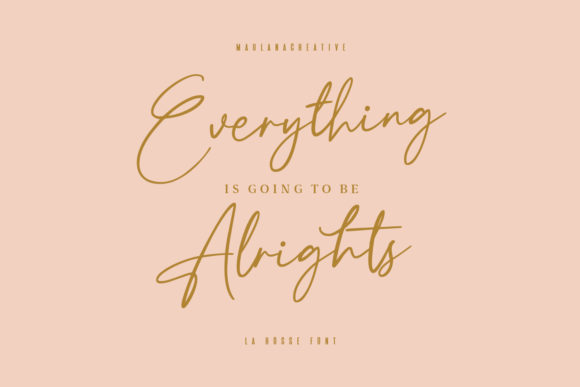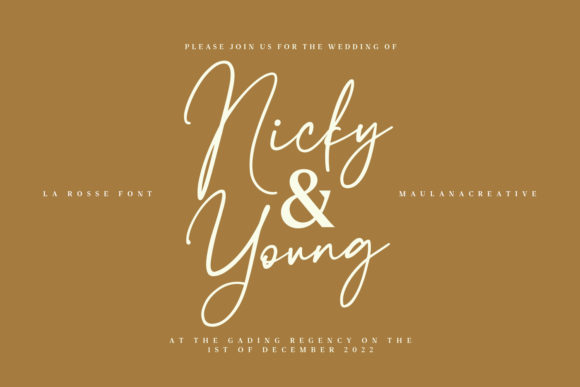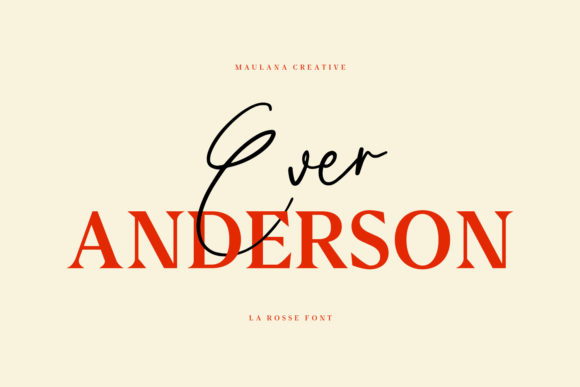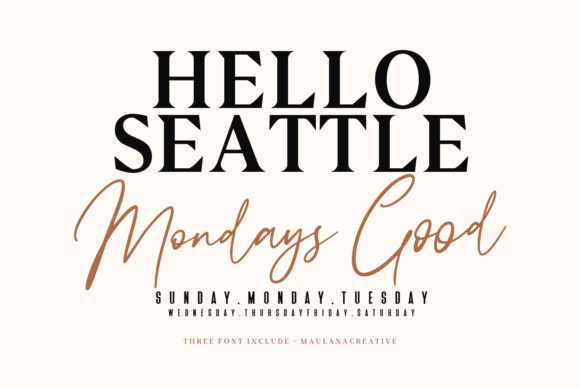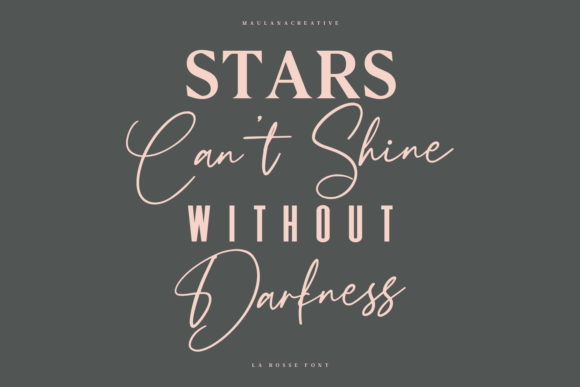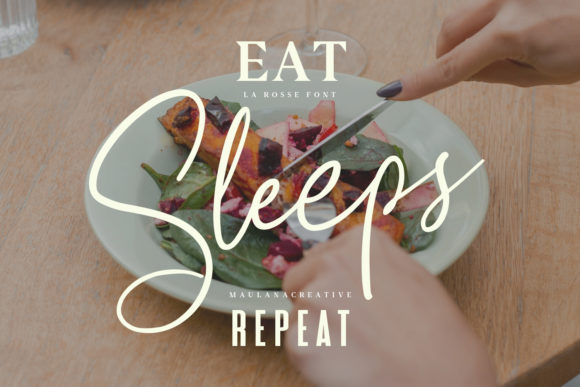
Introduction to La Rosse Font
Have you ever been stuck on a creative project, frantically searching for the perfect font to elevate your design? That moment of frustration is a common experience for many designers. But what if you stumbled upon a font that not only saved your project but also made it stand out? For those who have been searching for a high-quality, versatile font, look no further than La Rosse Font.
This elegant and stylish script font has been a game-changer for designers, offering a wide range of applications from serif to sans serif. With its classic touch, La Rosse Font is guaranteed to add a professional touch to any design project. Whether you’re working on a design resource or a personal creative project, this font is sure to impress. And the best part? It’s available for free download with a transparent background, making it a valuable addition to any designer’s toolkit.
Key Features of La Rosse Font
- High-quality design resource suitable for creative projects, offering a unique and elegant aesthetic.
- Offers a high-resolution design, ideal for print and digital applications.
- Characteristics include bold lines, distinctive letterforms, and a sophisticated feel, making it perfect for branding, typography, and editorial projects.
- La Rosse Font is ideal for designers seeking a high-quality, free design resource that can elevate their creative project.
Honest Review: La Rosse Font
As a designer, I’m always on the lookout for high-quality design resources that can elevate my creative projects. Recently, I stumbled upon La Rosse Font, and I’m excited to share my honest review.
- ✨ Beautiful, elegant script font with a modern twist
- ✨ High-quality vector format for crisp, clear lines and text
- ✨ Transparent background, making it easy to use in various design contexts
- ⚠️ Limited character set, which may not be ideal for lengthy text-based projects
- ⚠️ Not suitable for all design styles, as it’s quite elegant and may not work well with bold or playful designs
Overall, I’m impressed with La Rosse Font’s quality and versatility. While it may have some limitations, it’s a great addition to any designer’s toolkit. If you’re looking for a beautiful, elegant script font for your creative project, La Rosse Font is definitely worth considering.
La Rosse Font
Tips for Getting the Most Out of La Rosse Font
Here are some tips to help you get the most out of La Rosse Font: Use it for high-quality design projects, such as posters, brochures, and business cards. You can also use it for digital designs, such as social media graphics and presentations. Additionally, make sure to use a transparent background to give your design a clean and professional look.
La Rosse Font is a versatile font that can be used for a variety of creative projects. Some common use cases include: designing logos, creating social media graphics, and making presentations. You can also use it for writing and editing text, such as in a blog post or an article.
Yes, La Rosse Font has a transparent background, making it ideal for use on any design project that requires a clean and minimalist look. This feature also allows for seamless integration with other design elements.